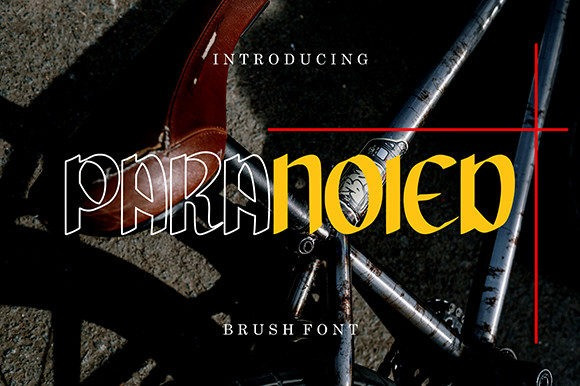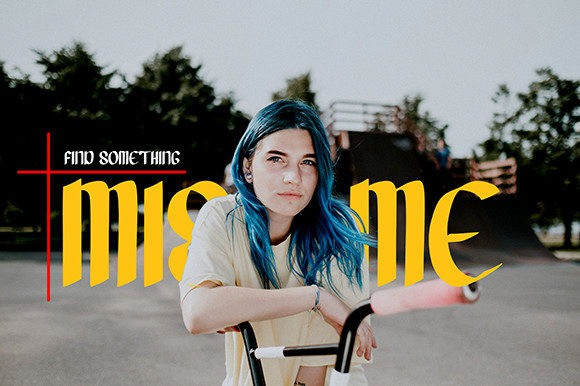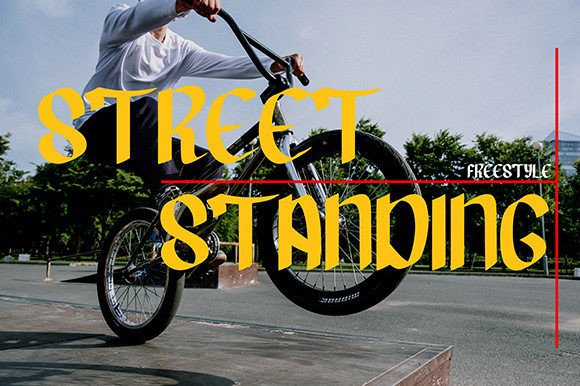
Paranoied Font
Paranoied is a cool, bold and thick lettered display font. It is PUA encoded which means you can access all glyphs and swashes with ease! Add it confidently to your favorite creations and let yourself be amazed by the outcome generated.